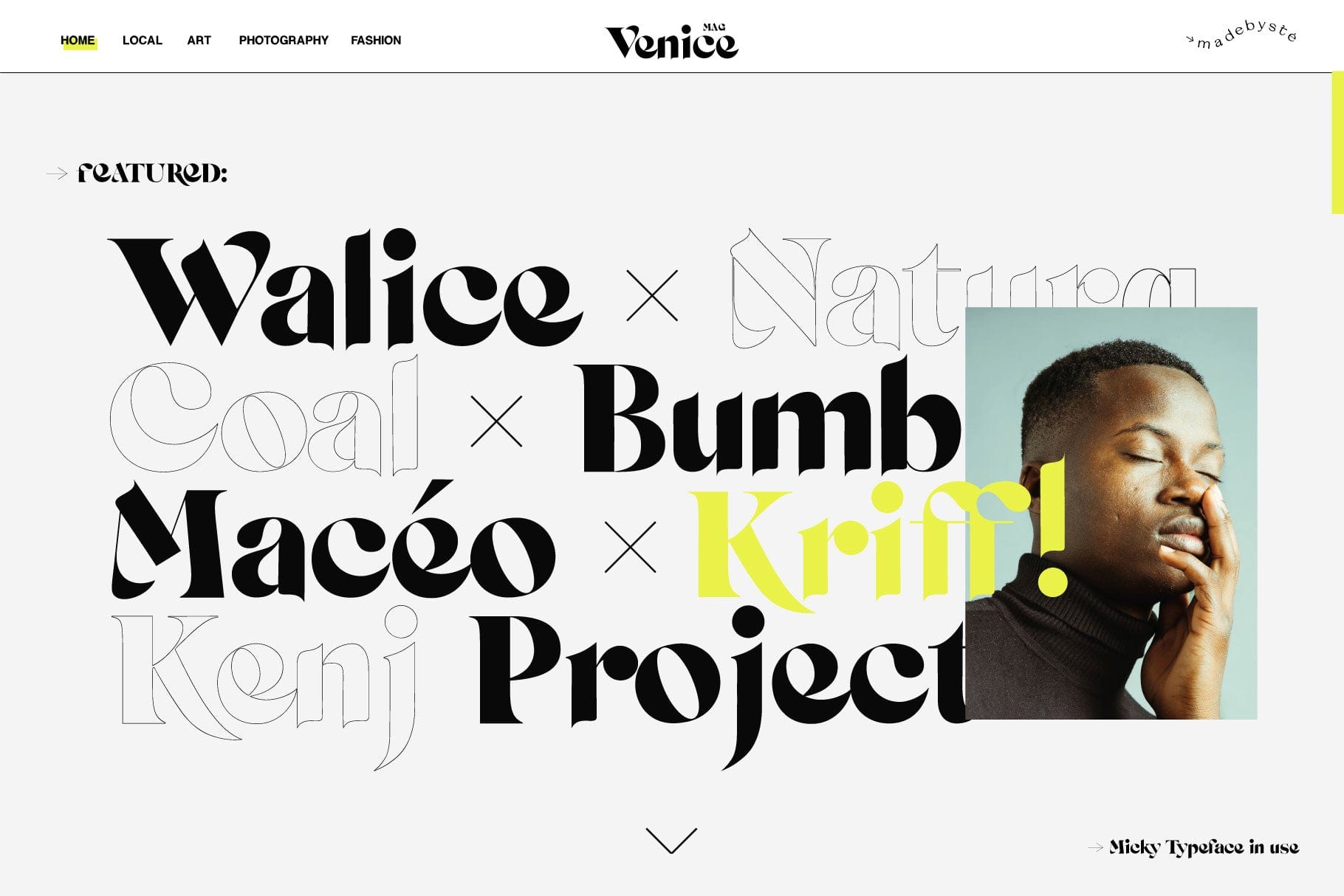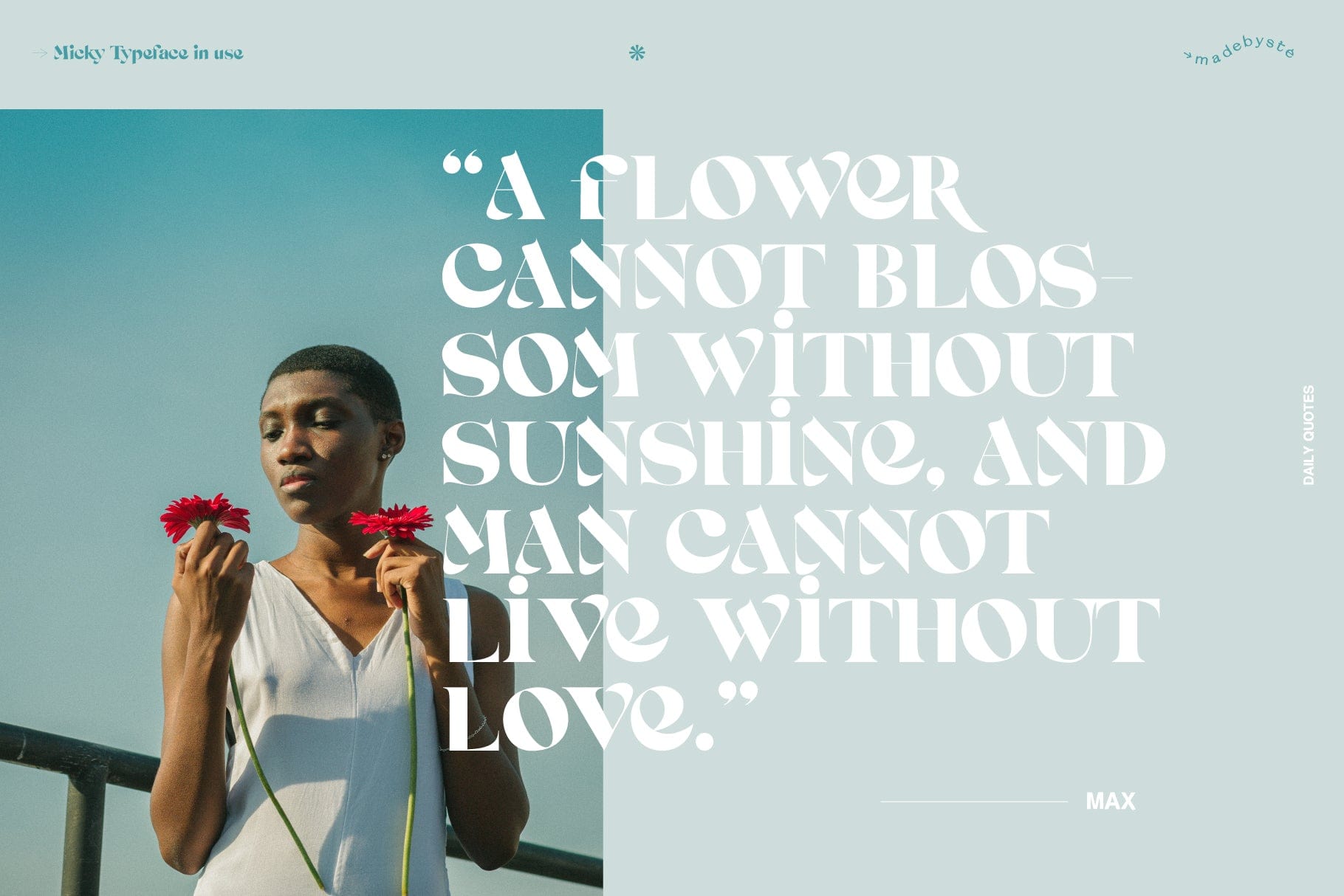
Micky Typeface
Micky is a fearless and chic typeface perfect for big headlines for both print and web. Create stunning and original layouts with the 3 fonts.
Combine Micky Regular & Outline to create strong and impactful designs. Plus use the BONUS "Square" Font to complete the experience.